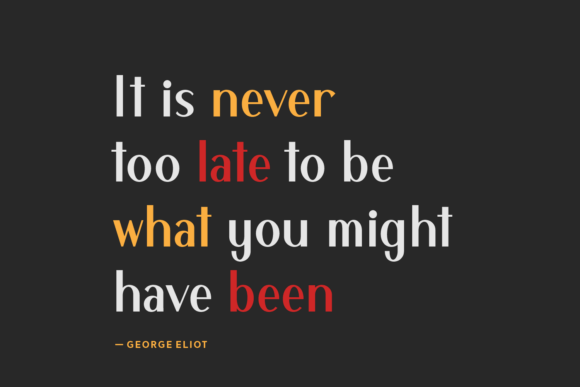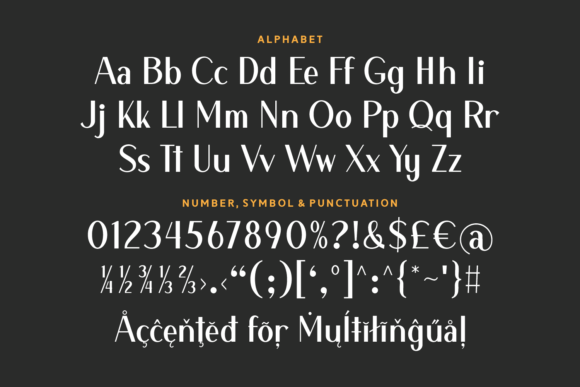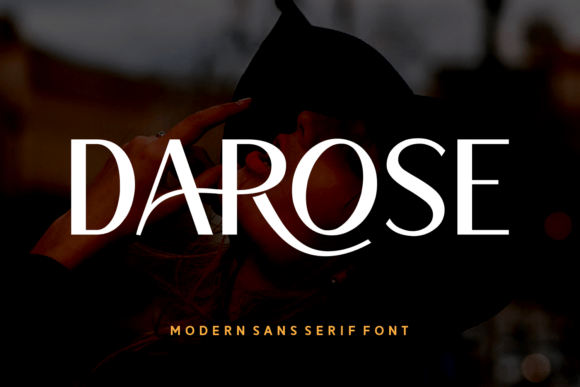
Introducing Darose Font: Elevate Your Design with Luxury and Elegance
In the world of typography, fonts play a crucial role in conveying the tone and personality of a brand or design. For designers and crafters seeking a modern sans serif font that exudes luxury and fashion-forward elegance, Darose Font is an exceptional choice. With its clean structure and beautifully exaggerated curves, Darose stands out in editorial layouts, branding, high-end packaging, and modern logo design.
The Unique Characteristics of Darose Font
Darose Font boasts a distinctive design that sets it apart from other sans serif fonts. Its clean structure provides a minimalist aesthetic, while the beautifully exaggerated curves add a touch of sophistication and elegance. One of the standout features of Darose is the unique design of the letter “R”, which showcases a perfect blend of modernity and luxury.
Perfect Balance between Minimalism and Visual Flair
Darose Font strikes the perfect balance between minimalism and visual flair, making your typography unforgettable. The font’s clean lines and simple structure ensure that your message is conveyed clearly and concisely, while the exaggerated curves add a touch of drama and sophistication. This balance makes Darose an ideal choice for designers and crafters seeking to create a lasting impression.
Applications of Darose Font
Darose Font is an incredibly versatile typeface that can be used in a wide range of applications, including:
- Editorial Layouts: Darose Font is perfect for use in magazines, newspapers, and online publications, where its clean structure and elegant curves can enhance the readability and visual appeal of your content.
- Branding: The font’s luxury and fashion-forward aesthetic make it an excellent choice for branding and identity design, helping to establish a strong and sophisticated visual identity for your brand.
- High-End Packaging: Darose Font is ideal for use in high-end packaging design, where its elegant curves and clean structure can add a touch of luxury and sophistication to your product packaging.
- Modern Logo Design: The font’s unique design and perfect balance between minimalism and visual flair make it an excellent choice for modern logo design, helping to create a lasting impression and establish a strong brand identity.
Why Choose Darose Font?
Darose Font offers a unique combination of luxury, elegance, and versatility, making it an excellent choice for designers and crafters seeking to elevate their design. Here are just a few reasons why you should consider using Darose Font in your next project:
- Unique Design: Darose Font boasts a distinctive design that sets it apart from other sans serif fonts.
- Versatility: The font is incredibly versatile and can be used in a wide range of applications.
- Elegance and Sophistication: Darose Font exudes luxury and fashion-forward elegance, making it perfect for high-end designs.
- Perfect Balance: The font strikes the perfect balance between minimalism and visual flair, making your typography unforgettable.
In conclusion, Darose Font is an exceptional choice for designers and crafters seeking a modern sans serif font with a touch of luxury and fashion-forward elegance. Its unique design, versatility, and perfect balance between minimalism and visual flair make it an ideal choice for a wide range of applications. Whether you’re working on editorial layouts, branding, high-end packaging, or modern logo design, Darose Font is sure to elevate your design and leave a lasting impression.